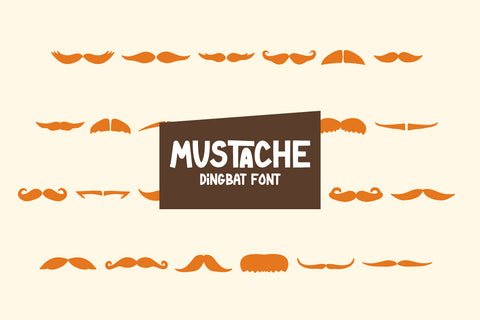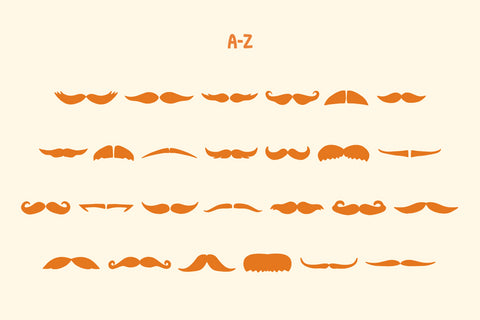
Mustache - Dingbat Font
Mustache is an original hand-drawn dingbat font featuring a father's day theme with a dad mustache character
This font is perfect for your creative projects, svg files, craft projects, graphic tees, logos, social media, stickers, procreate, and more!